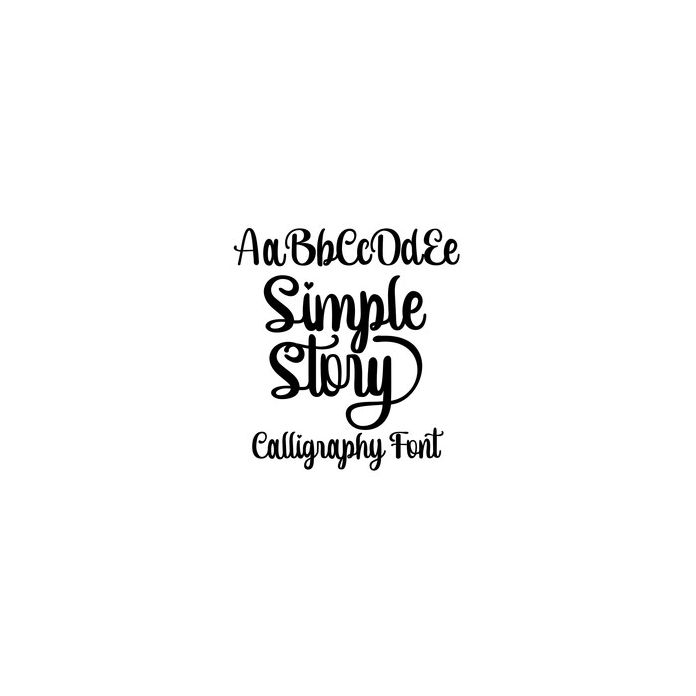
Simple Story is a script font that is straightforward and skillful to be combined in any design also suitable for use to welcome the new year. Perfect for projects, products, crafts, invitations and personalization. Includes alphabet, numbers, and punctuation.